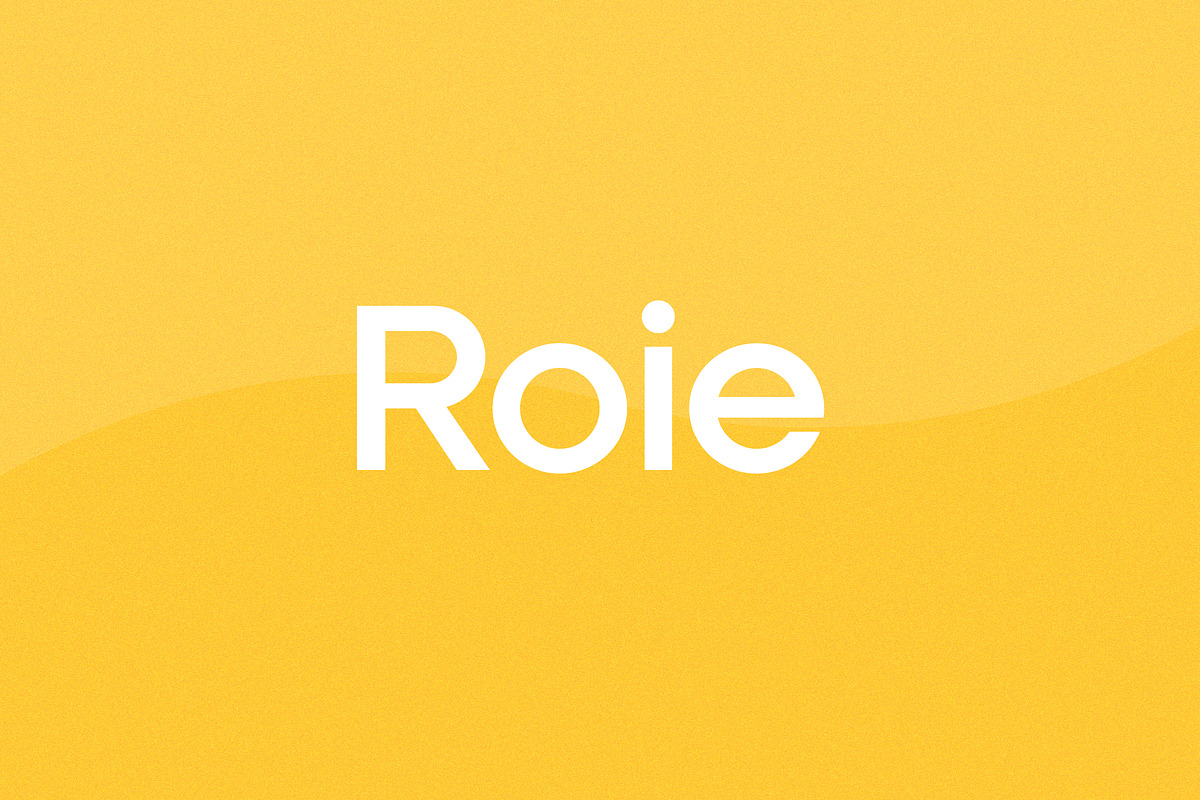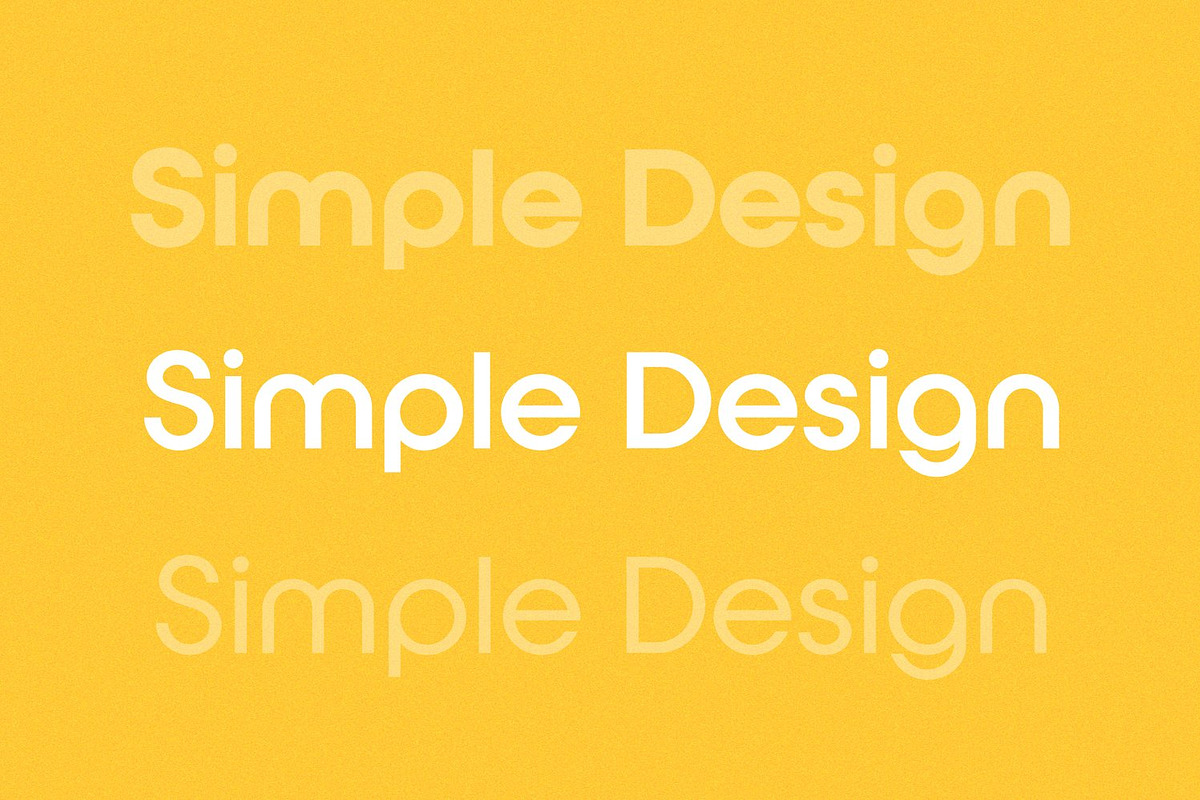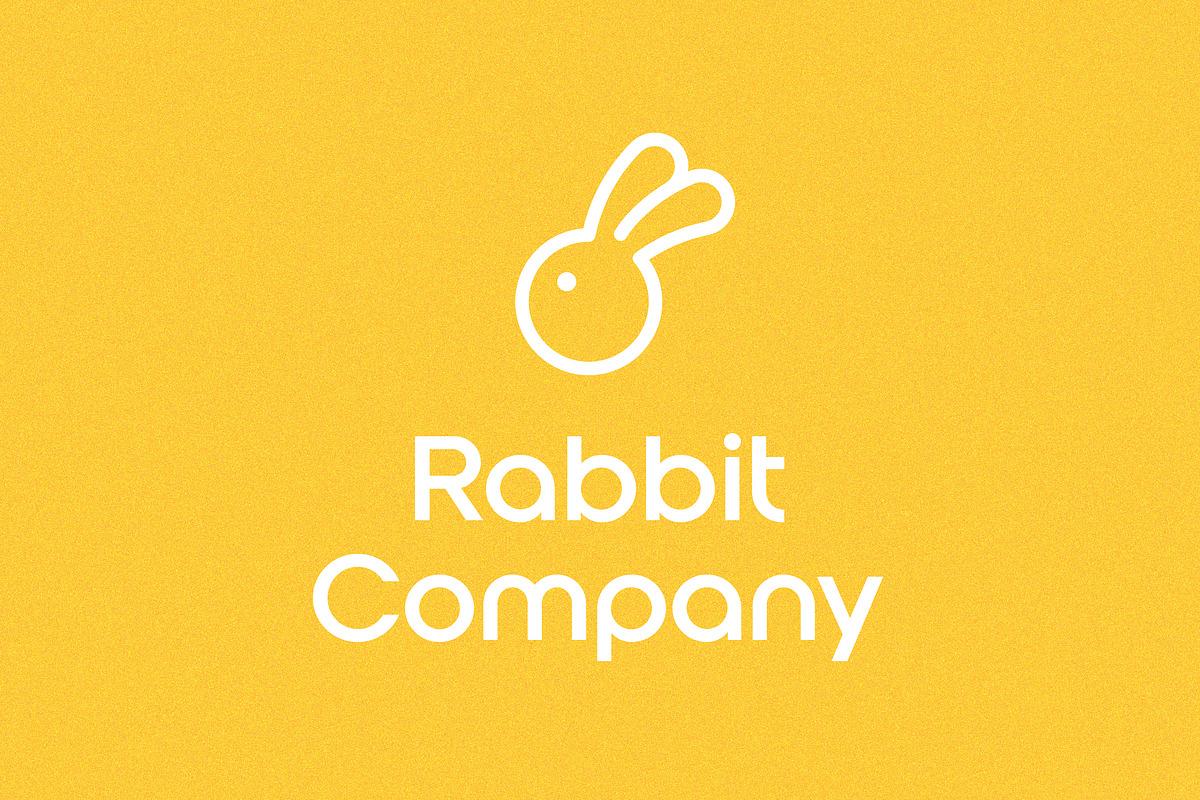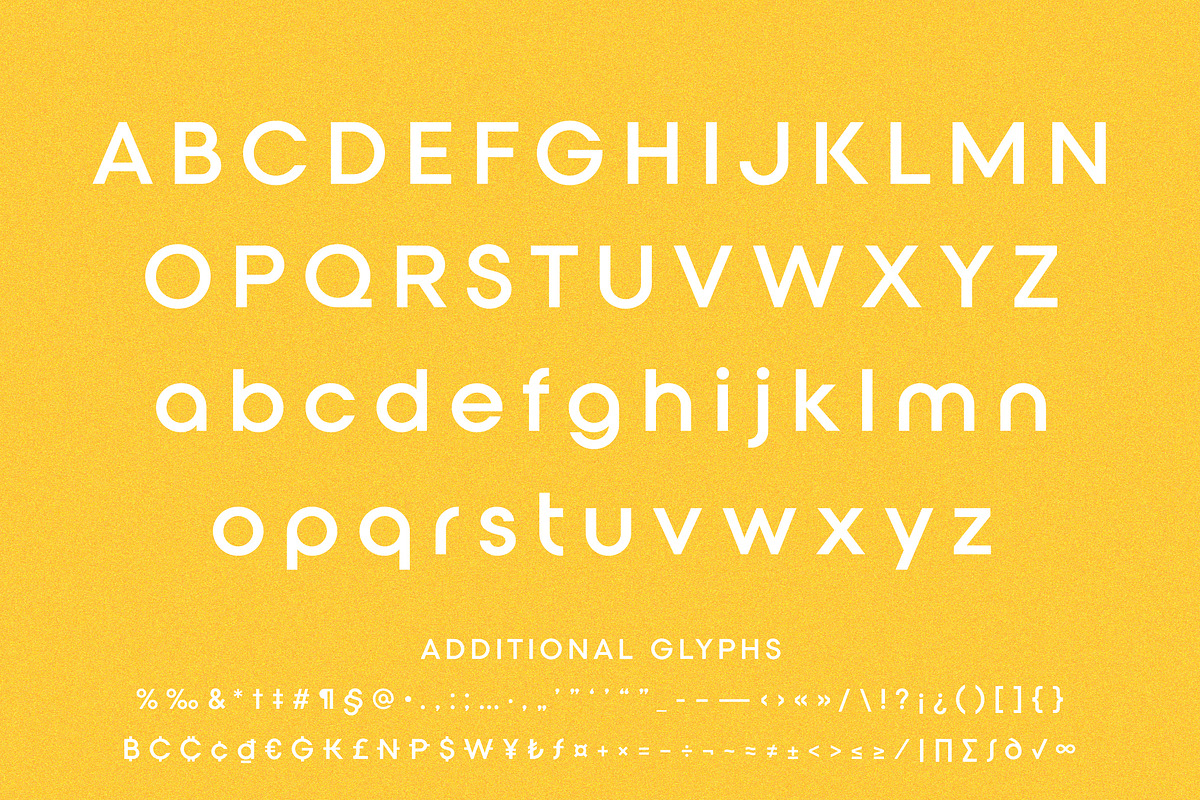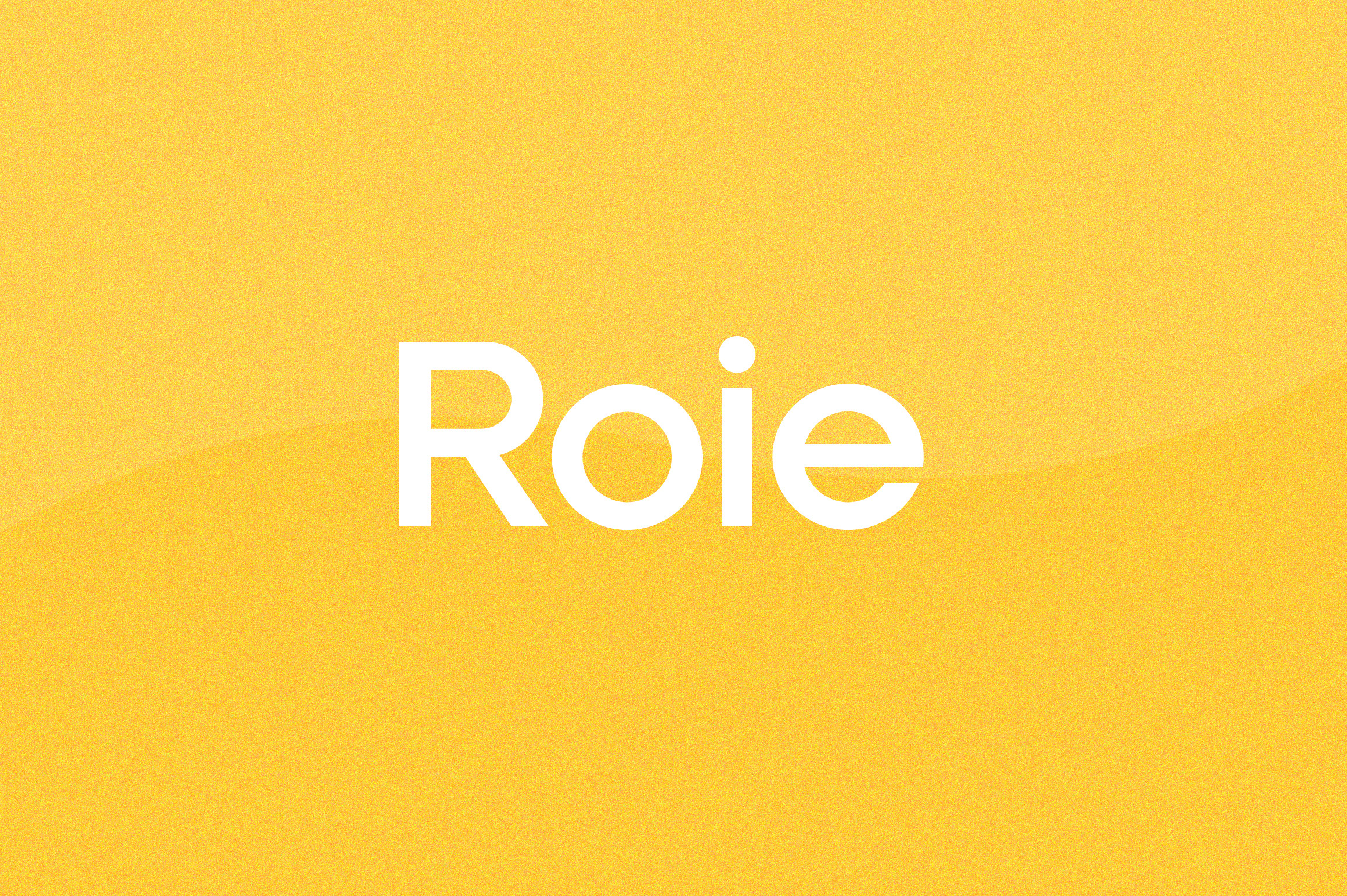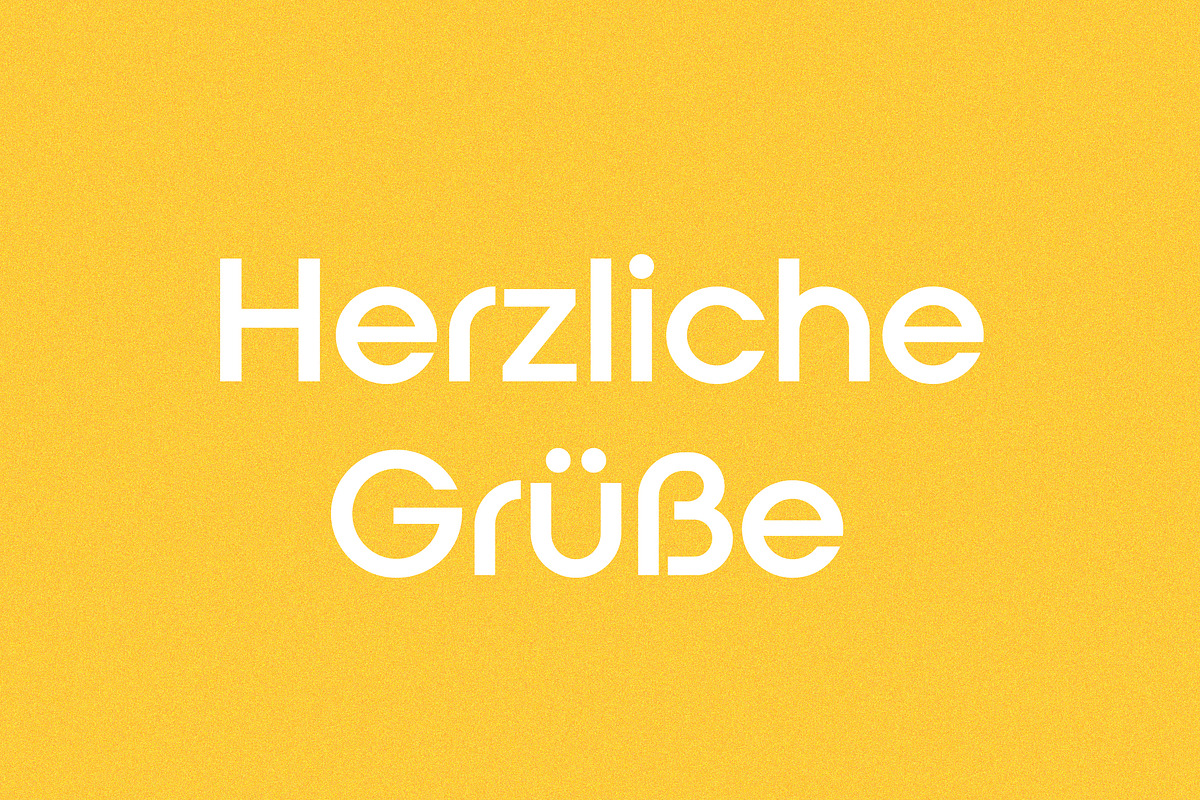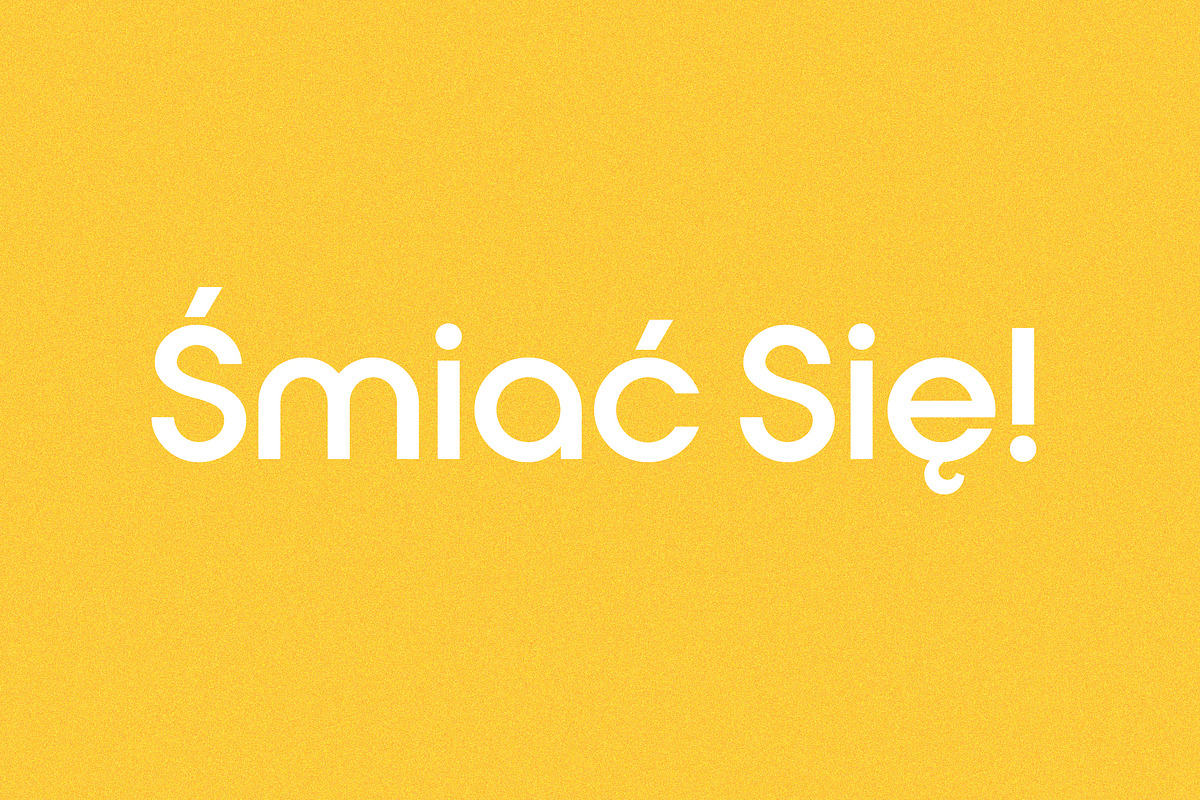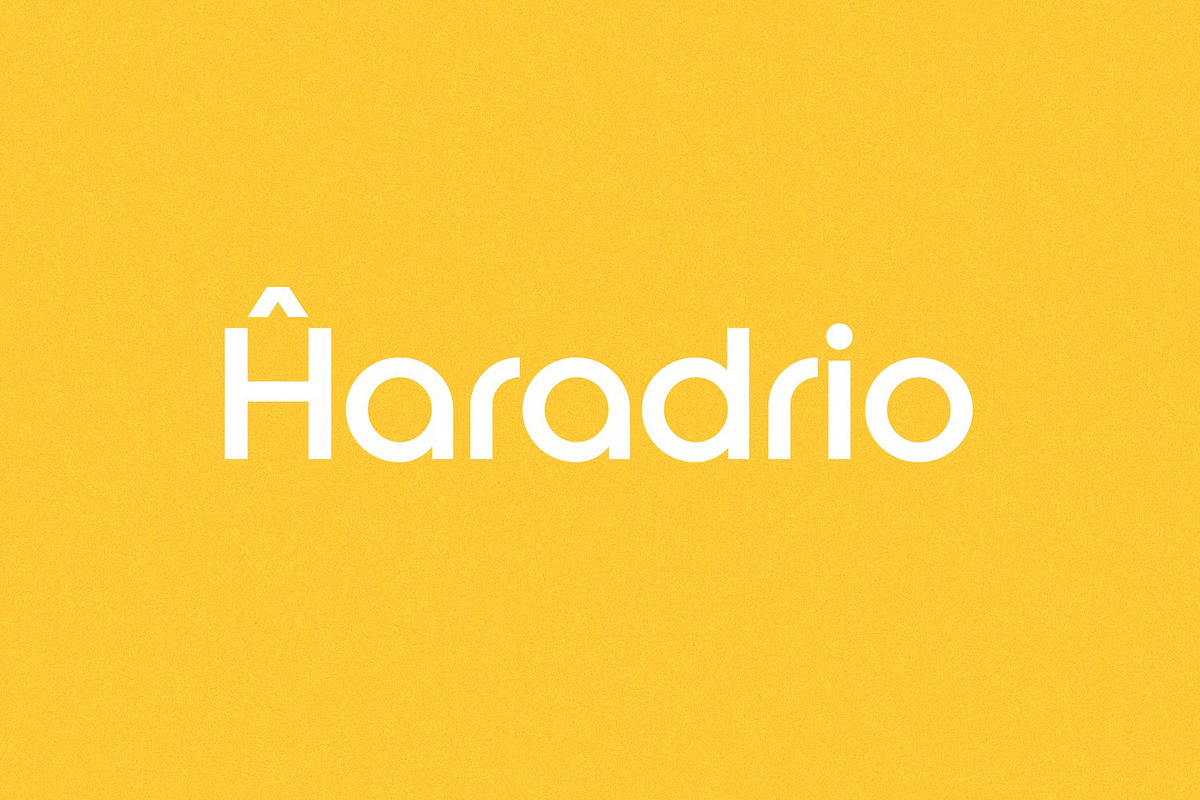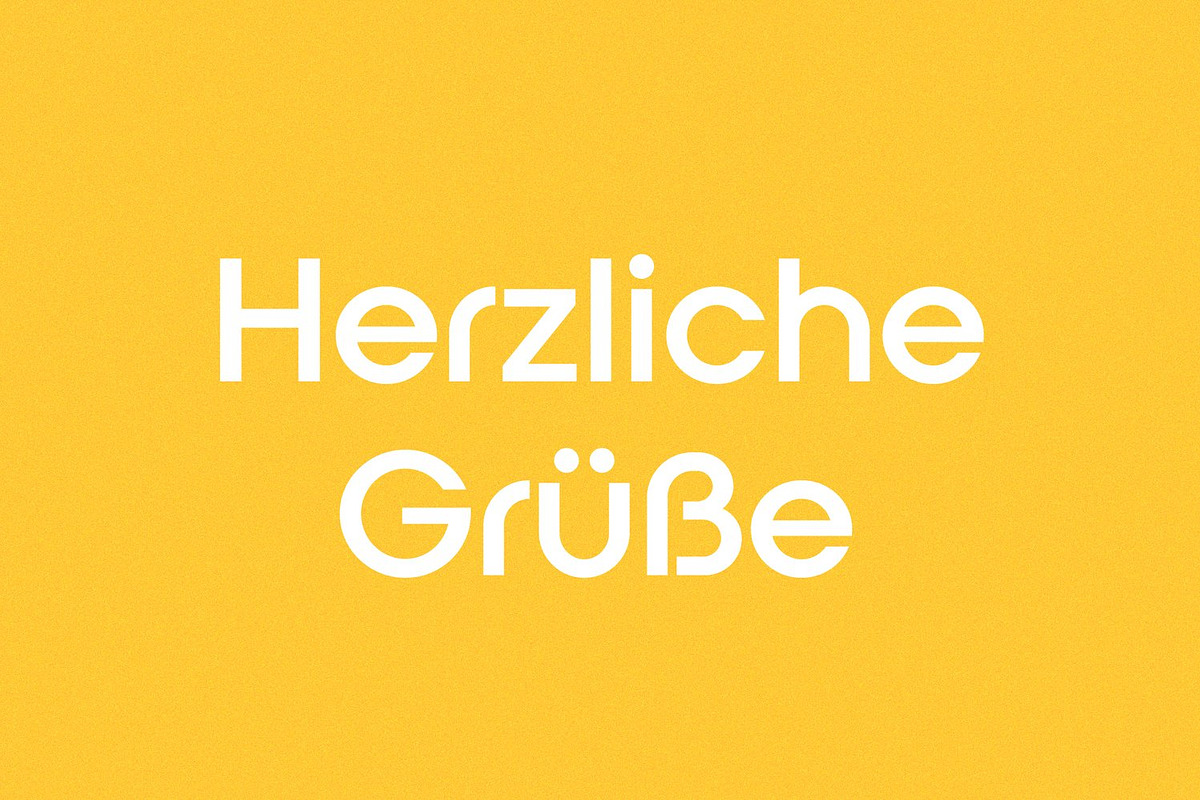
Roie Logo Font
Roie is a special font for your logo & branding.
Every character is designed for a good logo, so not suitable for a long text.
673 Glyphs & 230 Languages: Extensive Latin / Cyrillic / Greek / Vietnamese
Concept: Basic / Clean / Next / Positive / Simple